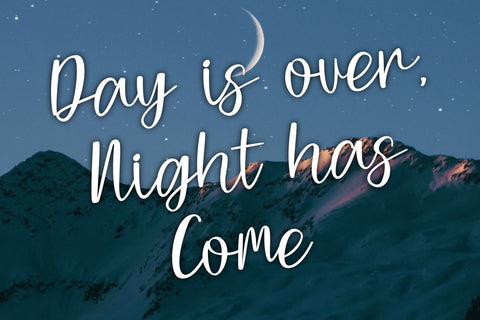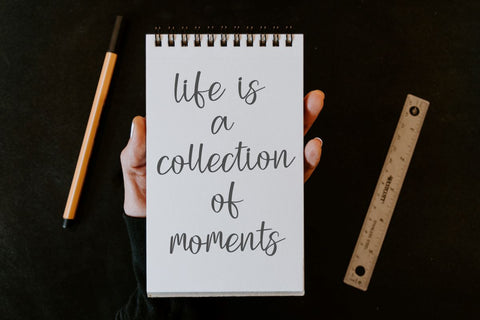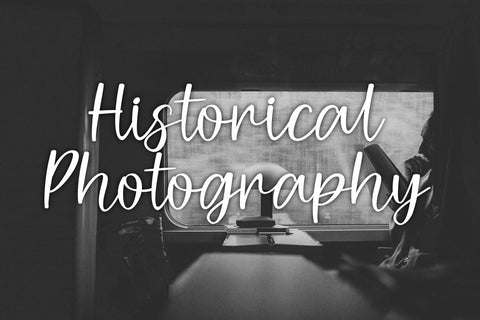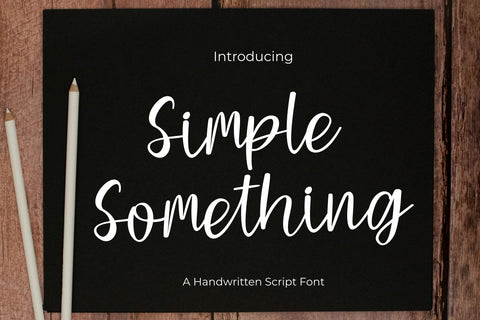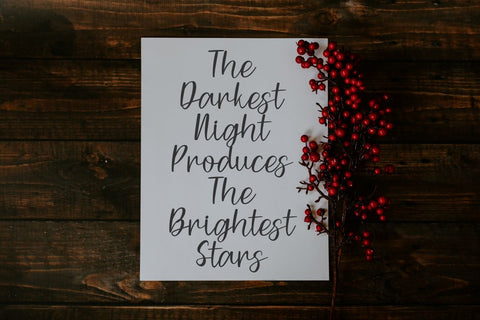
Simple Something - handwritten Script Font
Simple Something is Handwritten Script font. It has a elegant, and modern look which can be used for logos, branding, invitations, stationary, wedding designs, social media posts, and every other design.